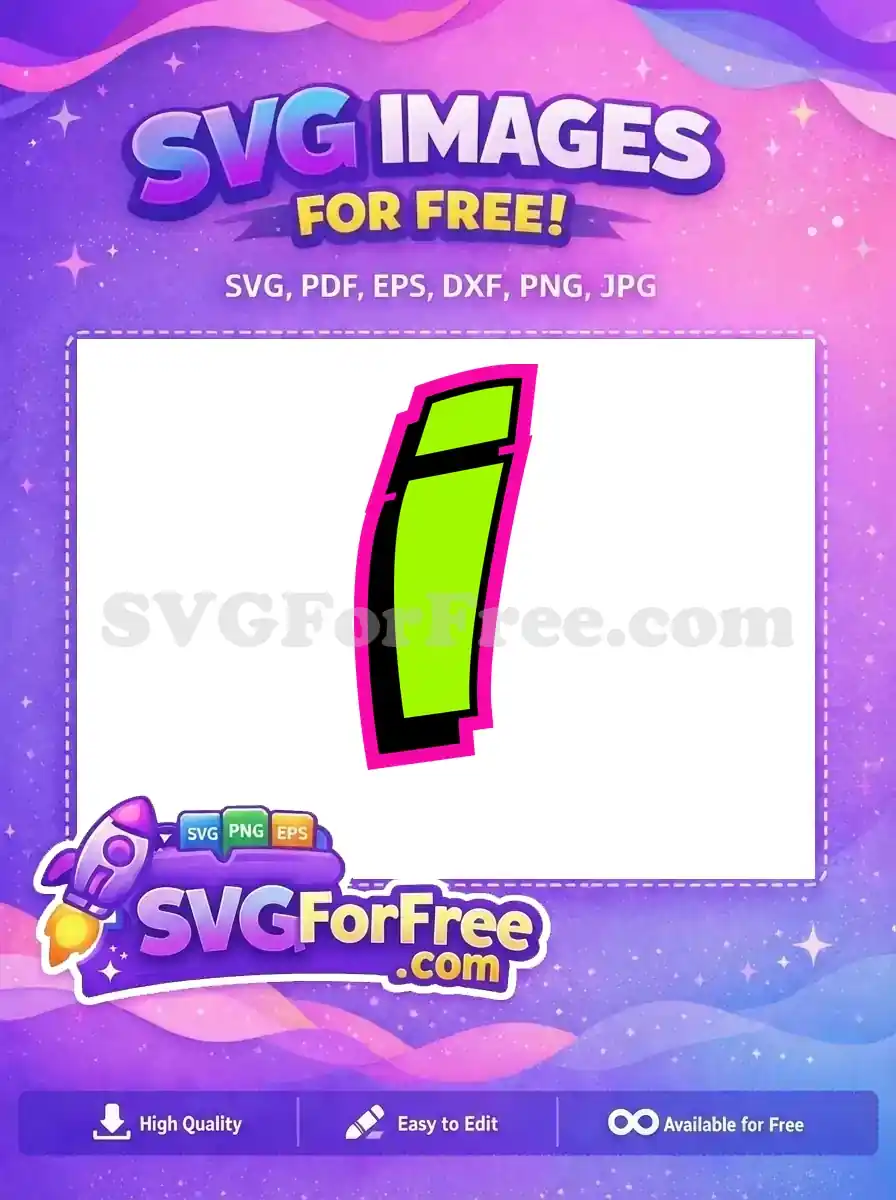
Vibrant letter I in green with pink edges and black depth, perfect for bold words as a free design.
Free Green Bold Font Free Letter I Fonts Free SVG